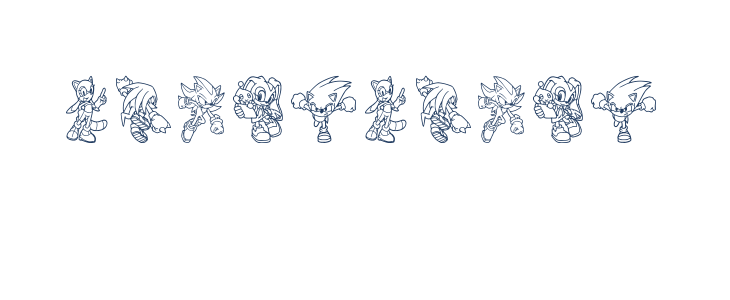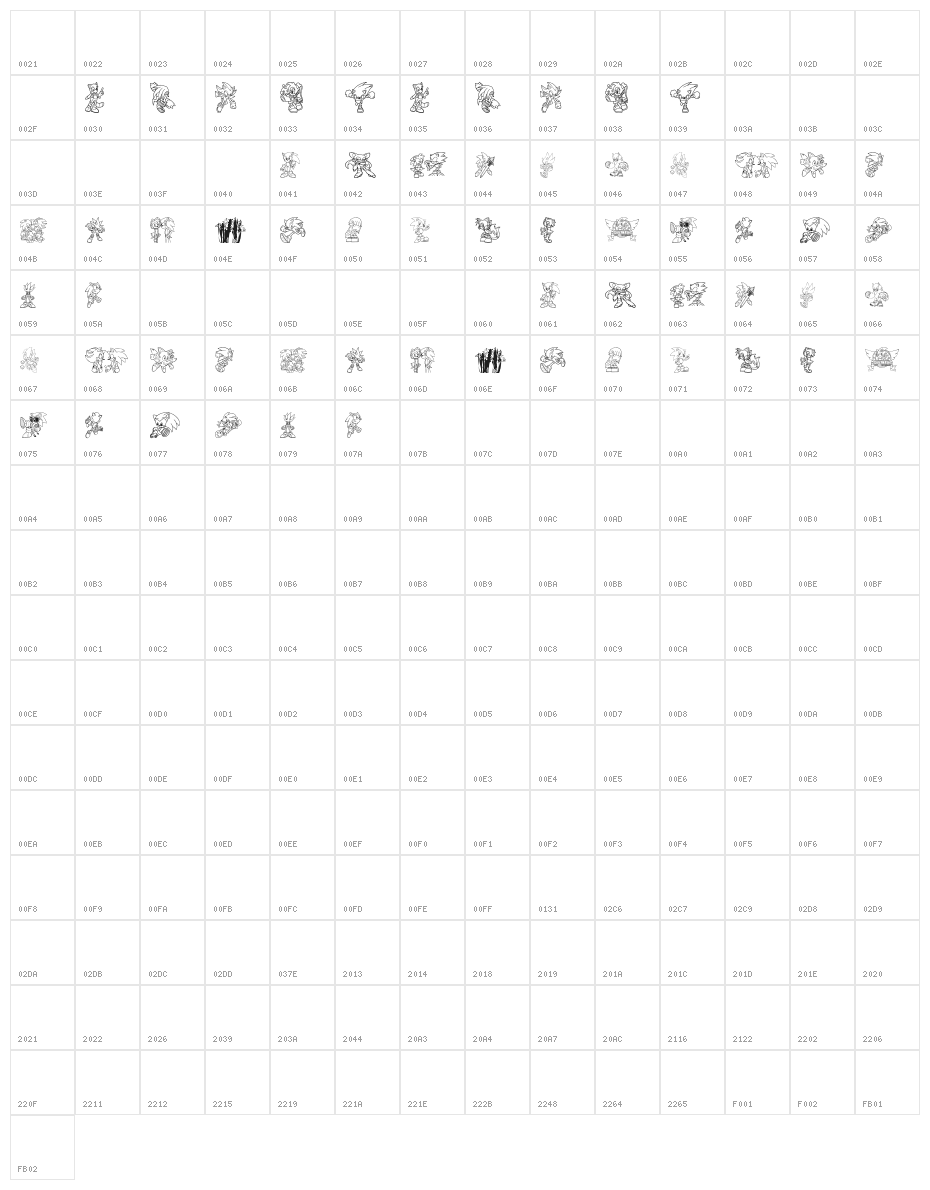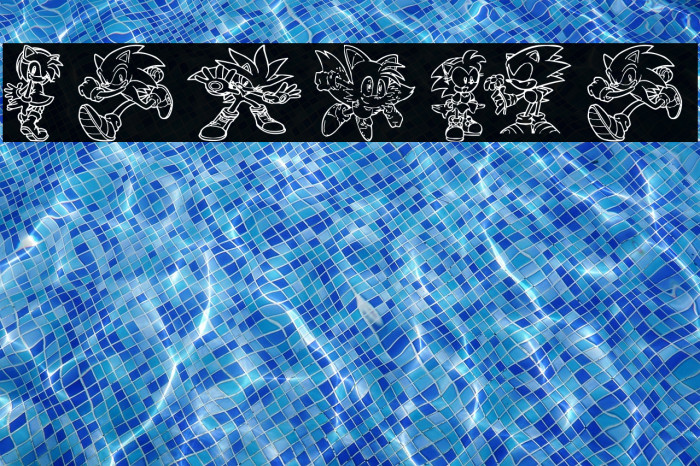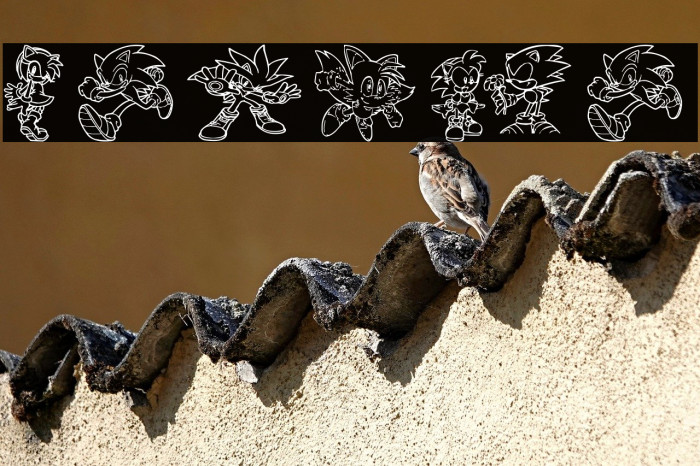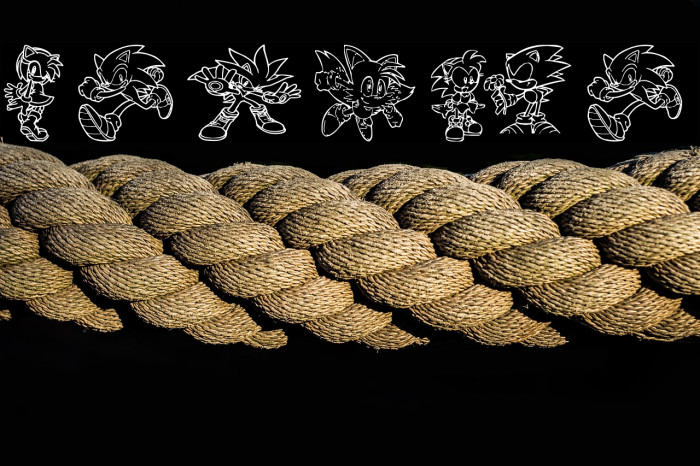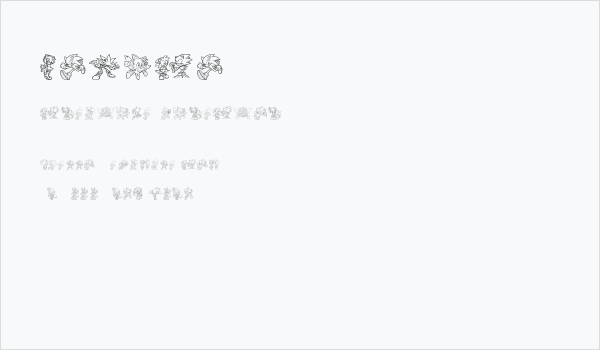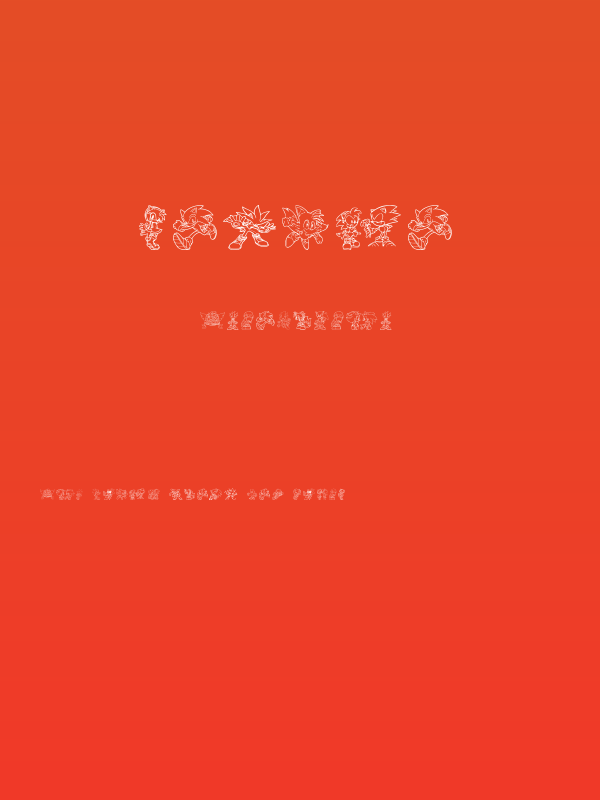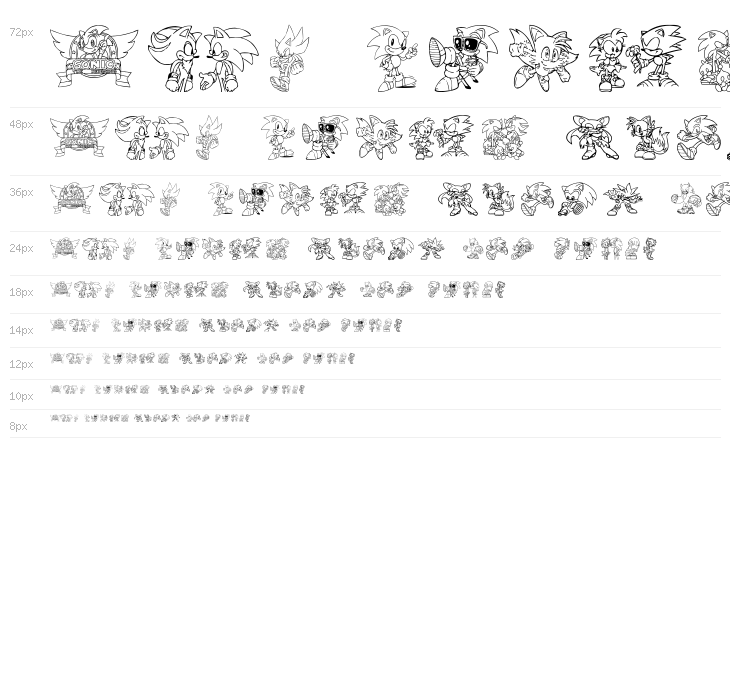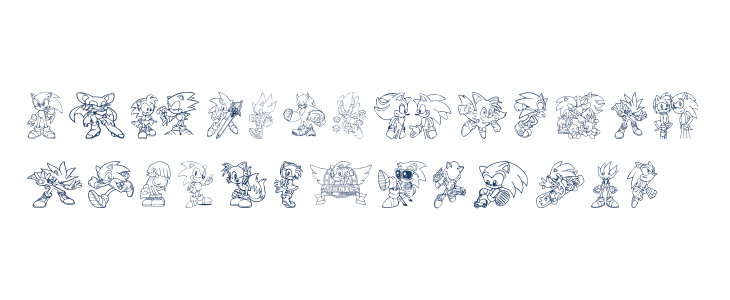
Sonico Font
Sonico Description
A decorative font consisting of detailed cartoon-style character illustrations arranged as glyphs, representing letters, numbers, and symbols.
| Overall Style | Playful, Cartoonish, Whimsical |
| Use Case | Headlines, Logos, Thematic designs for entertainment or kids' media |
| Proposed Projects | Children's books, comic titles, video game branding, playful posters, and novelty designs. |